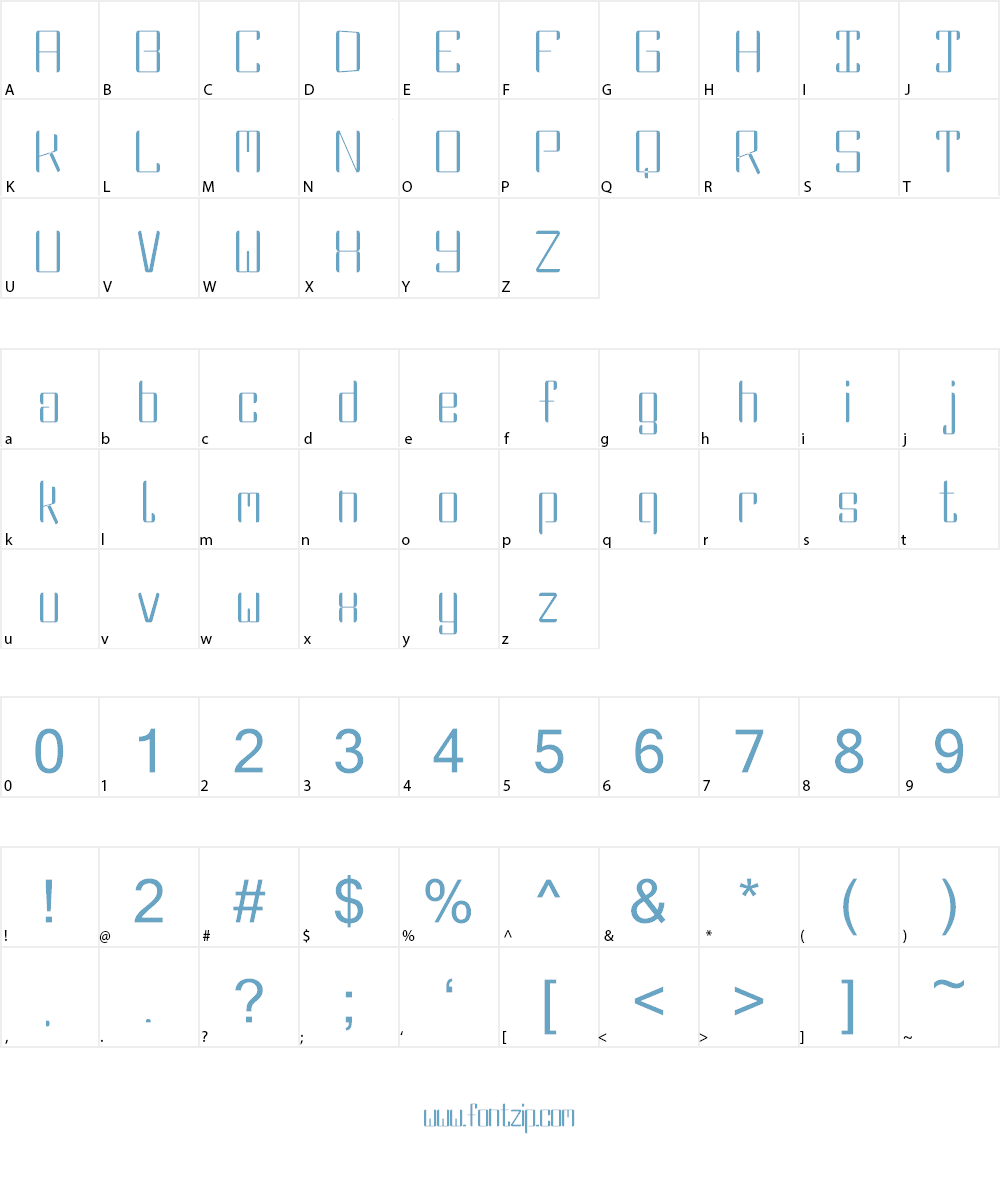
A simple sans-serif font with semi-rounded corners. No numbers are included. Created by Dave Panfili for Davalign LLC. Visit www.davalign.com for more fonts.